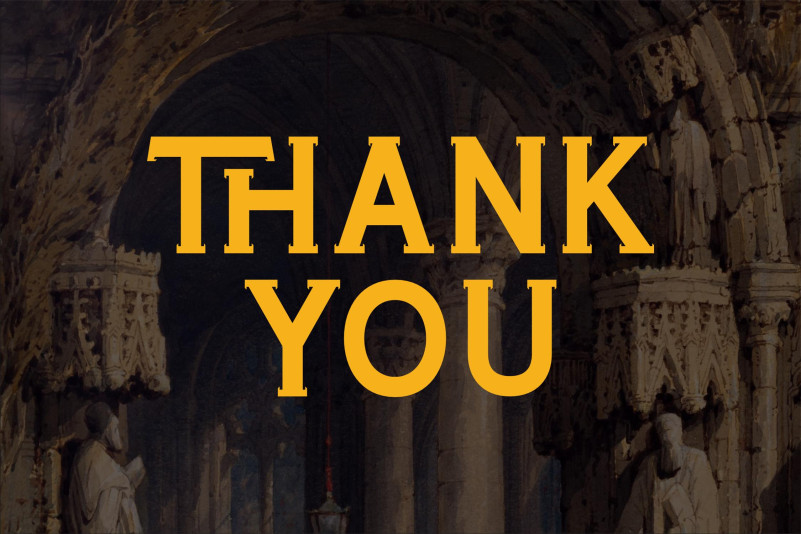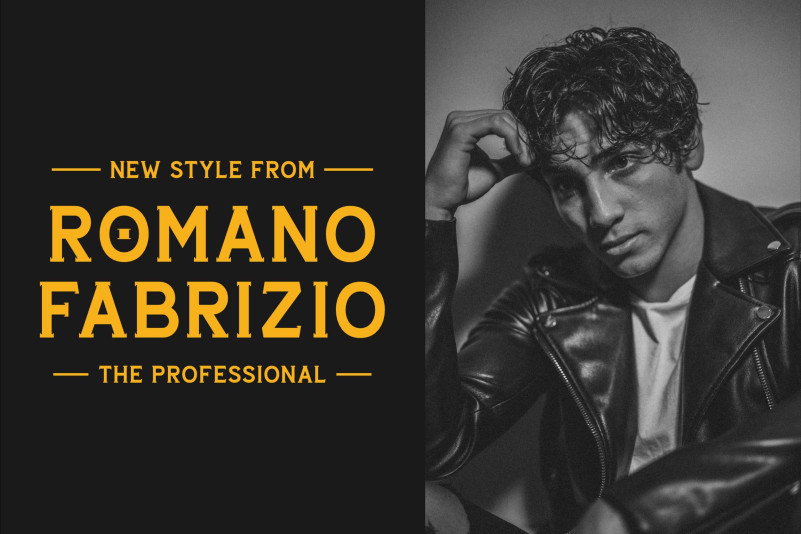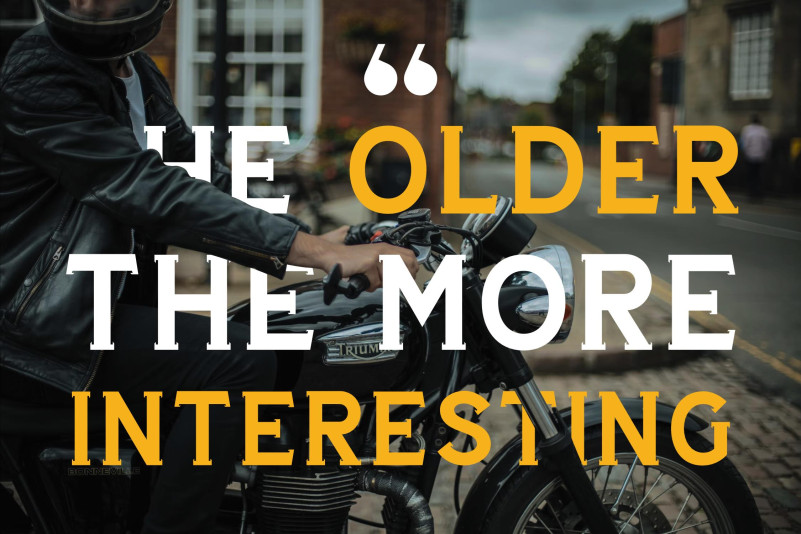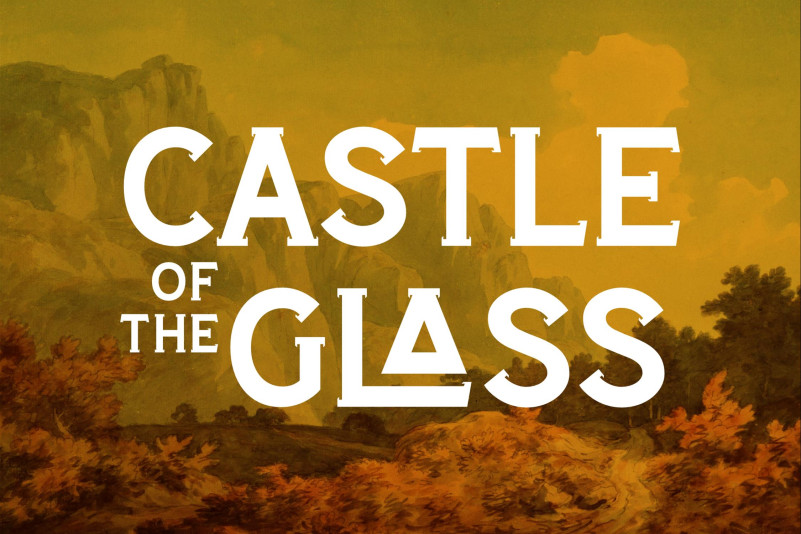
Demiths Font
Demiths Serif Font is a serif modern and classic typeface that has own unique style & modern look. This typeface is perfect for an elegant & luxury logo, book or movie title design, fashion brand, magazine, clothes, lettering, quotes, and so much more.